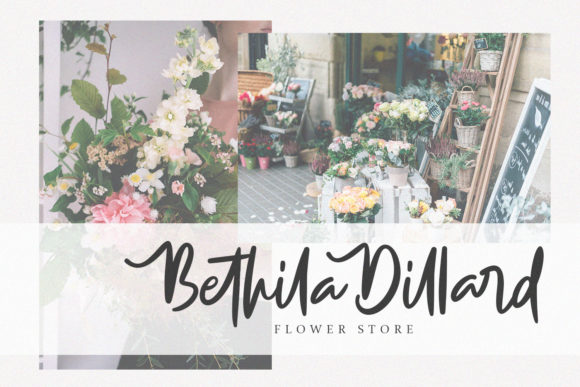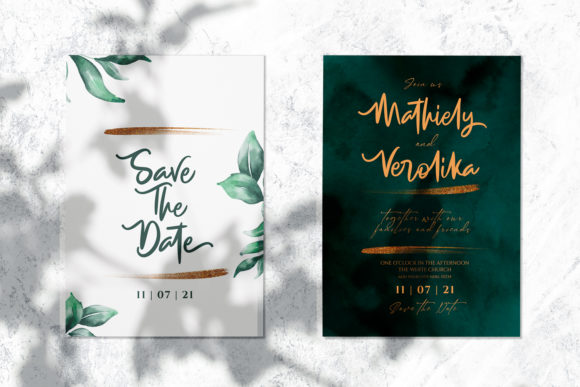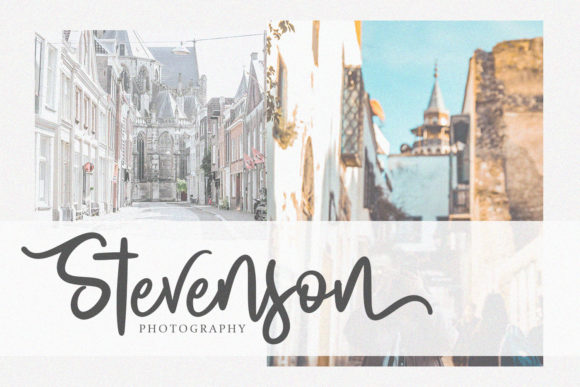
Introduction to Creamy Buttermilk Font
Have you ever stared at a blank page, feeling the pressure of a looming deadline, and wished for a spark of inspiration to guide your creative journey? For designers, those moments of uncertainty are all too familiar. But what if you had the perfect tool to bring your ideas to life? Enter the Creamy Buttermilk Font, a delightful addition to any design arsenal.
As a casual handwritten font, Creamy Buttermilk Font exudes an authentic and casual charm that’s perfect for creative projects requiring a touch of personality. Its cute swashes and PUA encoding make it a breeze to access and use, allowing you to focus on what really matters – bringing your vision to life.
Key Features of Creamy Buttermilk Font
- Unique and elegant design, perfect for creative projects that require a touch of sophistication.
- High-quality font with transparent background, ideal for use on various design resources.
Honest Review: Creamy Buttermilk Font
Here are some things that work well for the Creamy Buttermilk Font:
- ✨ High quality: The font is well-designed and looks great on screen. It’s perfect for creative projects that require a unique touch.
- ✨ Transparent background: This makes it easy to use the font on any background, without worrying about it getting lost in the design.
- ✨ Versatile: The font can be used for a wide range of designs, from headings to body text.
- ⚠️ Limited font weights: The font only comes in a few weights, which may limit its use in certain designs.
- ⚠️ Not suitable for small text: The font is best used for larger text sizes, as it can become difficult to read at smaller sizes.
Overall, I’m impressed with the Creamy Buttermilk Font. It’s a great design resource that can add a unique touch to any creative project. While it has some limitations, it’s definitely worth considering for your next design project.
Alternatives to Creamy Buttermilk Font
Yes, the Creamy Buttermilk Font has a transparent background, making it perfect for use on images or designs with a background color. This allows for a seamless integration of the font with your design, giving it a professional and polished look.